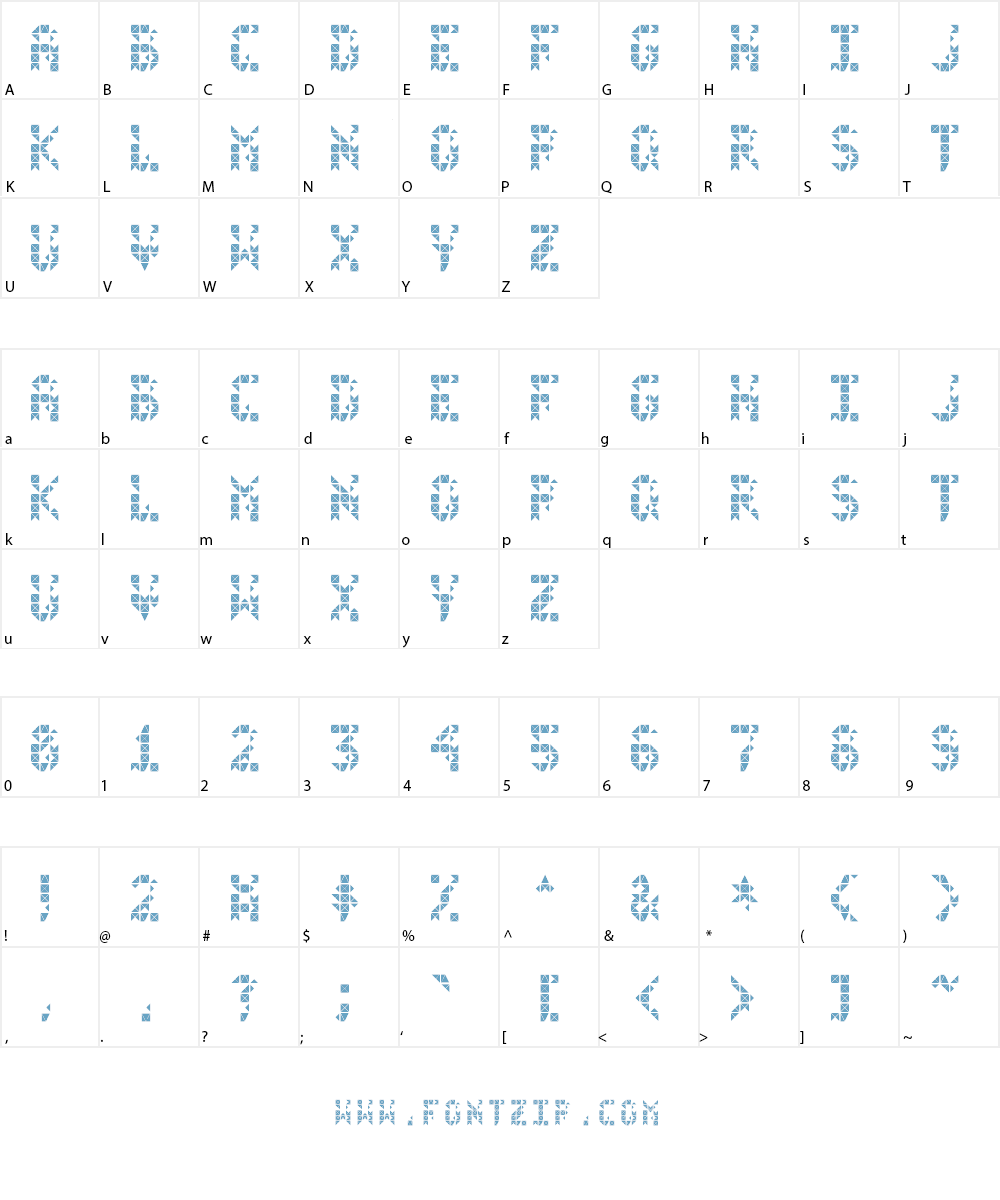
Flicker is a set of fonts based on a type of alphanumeric display, consisting
of segmented pixels, and sometimes seen in airports or on trains.
The set consists of several fonts; these are:
Flicker - the basic alphanumeric font set.
Lowercase is a copy of uppercase; there are no accented characters.
FlickerDamaged - A version of Flicker simulating a malfunctioning
display. Some segments are missing; others elsewhere are lit.
Flicker03 - A version of Flicker with only the bottom 3 rows visible.
Flicker15 - A version of Flicker with only the top 4 rows visible.
FlickerRandom - A font based on the segmented display grid used in Flicker,
only each character has a random assortment of pixels lit. Different
characters have different densities of lit pixels, and may be overlaid.
The Flicker font set is monospaced; consequently, characters from different
fonts may be overlaid to achieve multi-layered effects.
Note: Flicker is intended as a display font only, and is not suitable for